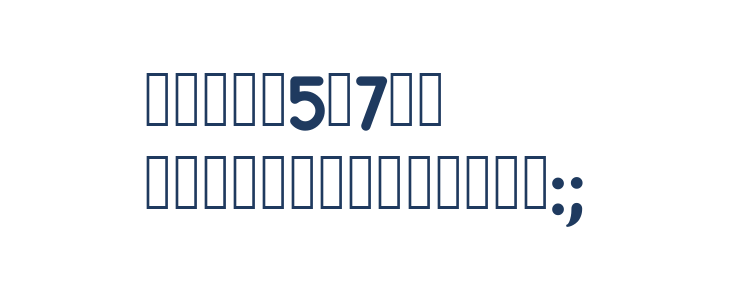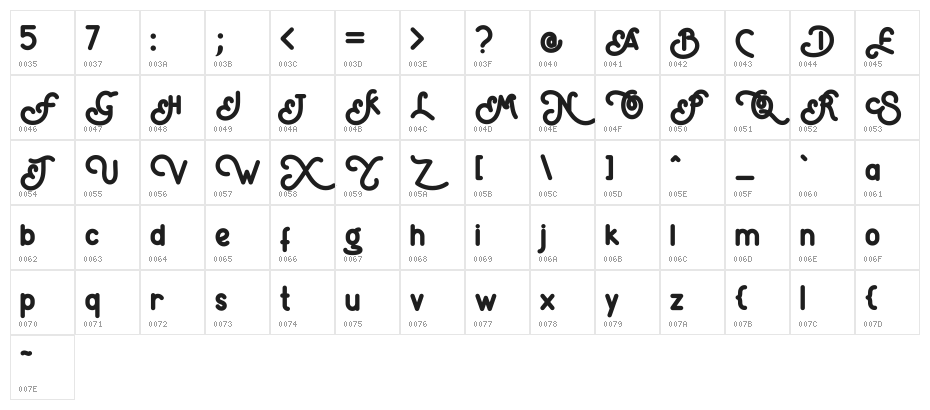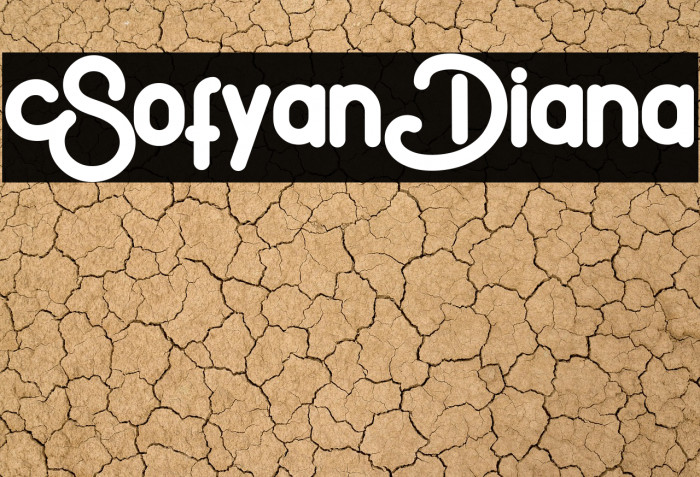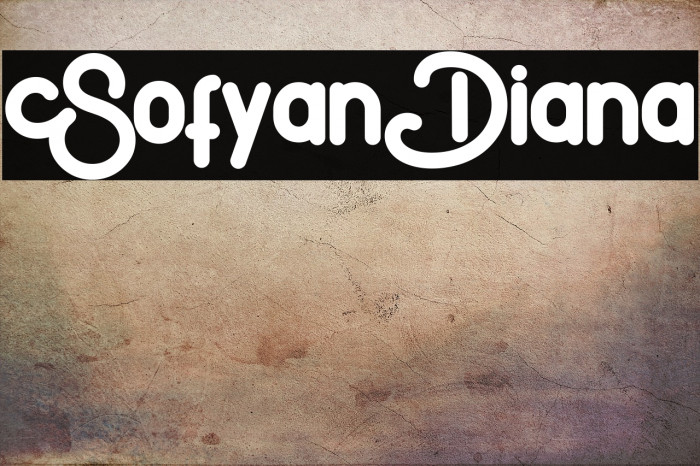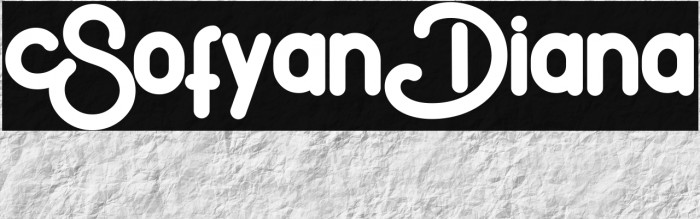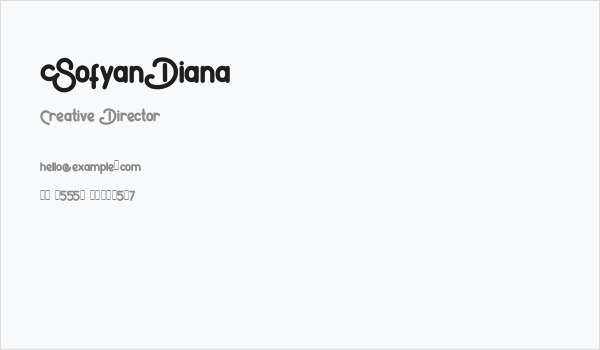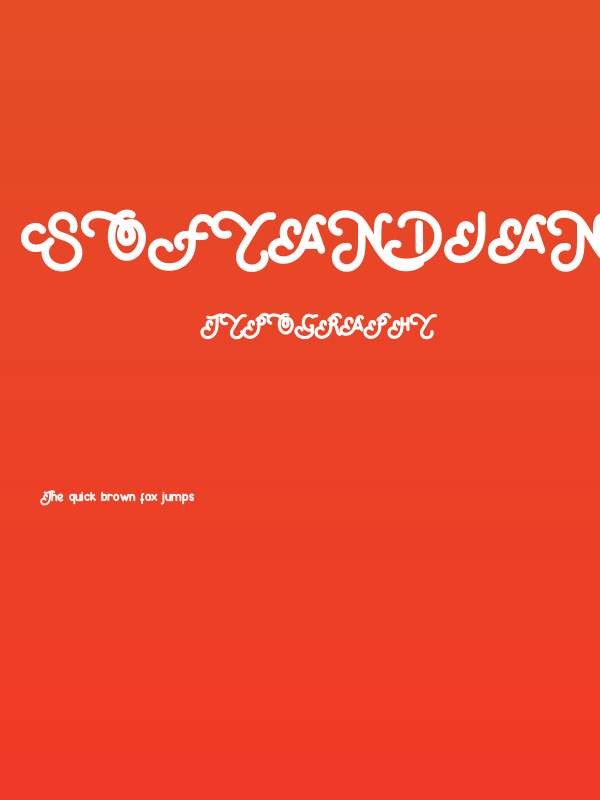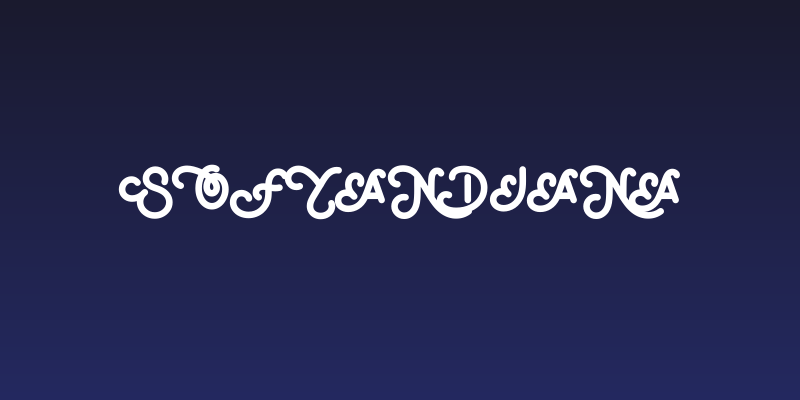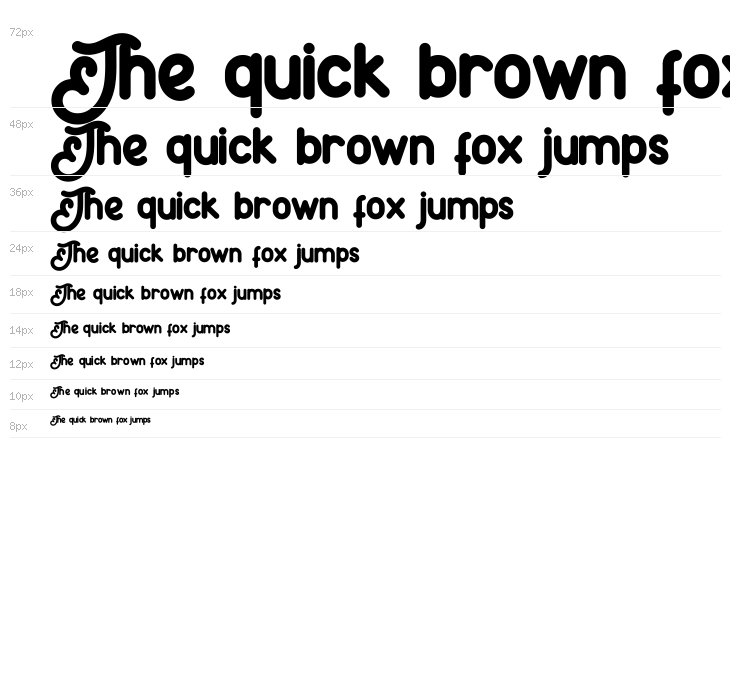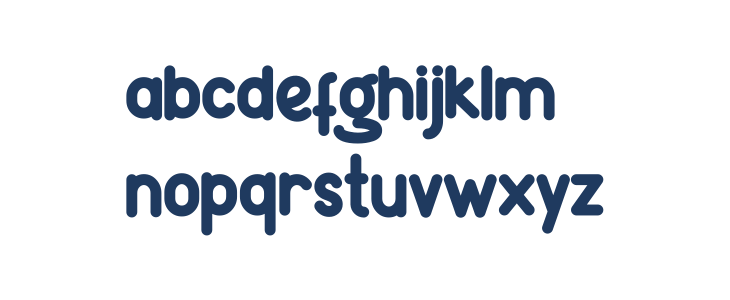
SofyanDiana Font
SofyanDiana Description
This font features a playful and whimsical design with a unique blend of decorative and bold elements. The uppercase letters are intricately designed with swirling, curly embellishments that give a sense of movement and creativity. In contrast, the lowercase letters are bold and rounded, offering a more straightforward and modern appearance. The numbers maintain the bold style, ensuring consistency across the font. This combination of decorative uppercase and bold lowercase creates a dynamic and versatile typeface suitable for various creative applications.
| Use Case | Headlines, Logos, Creative Projects |
| Proposed Projects | Ideal for children's book covers, playful branding, creative posters, and whimsical invitations. |